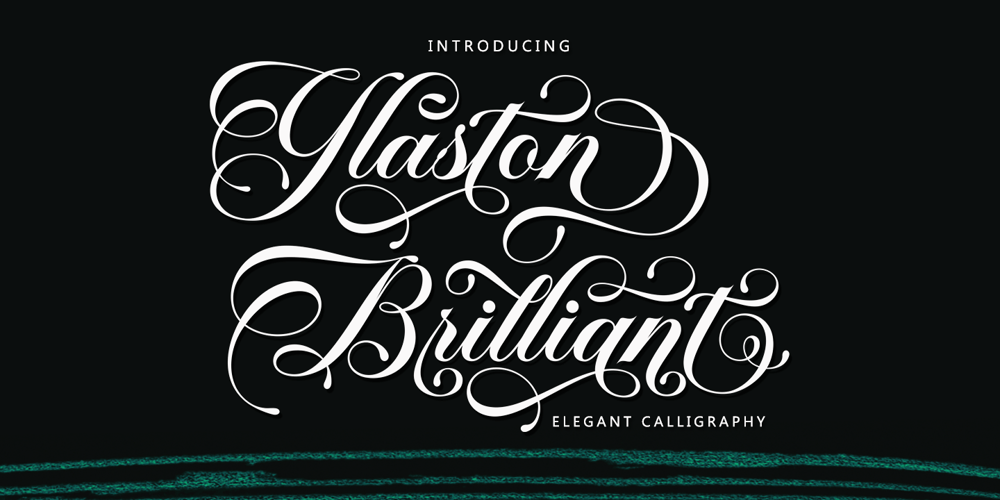
Glaston Brilliant
Glaston Brilliant font
Glaston Brilliant Font Family was designed by Wahi Din and published by Gold Type. Glaston Brilliant contains 1 styles and family package options. Glaston Brilliant Script is one of the Elegant script fonts that comes with a very beautiful character change, a kind of classic copper decorative script with a modern twist, designed with great detail to bring out an elegant style.You will get:Glaston Brilliant filesGlaston Brilliant Script is interesting because the typeface is pleasing to the eye, clean, feminine, sensual, glamorous, simple and very easy to read, thanks to the many luxurious letter connections. I also offer a decent number of stylistic alternatives for some of the letters. Classic style is very suitable to be applied in various formal forms such as invitations, labels, restaurant menus, logos, fashion, make up, stationery, novels, magazines, books, greeting/wedding cards, packaging, labels or all kinds of advertisements. destination. . .Glaston Brilliant has alternate glyphs and characters, including multiple language support. With OpenType features with alternative styles and elegant ligatures. The OpenType features don’t work automatically, but you can access them manually and for best results your creativity will be required in combining variations of these Glyphs. I highly recommend using a program that supports OpenType features and the Glyphs panel such as Adobe Illustrator, Adobe Photoshop CC, Adobe InDesign, or CorelDraw, so that you can view and access all variations of Glyphs.If you need help or have any questions, let me know. I’m happy to help.Thanks & Happy Designing.